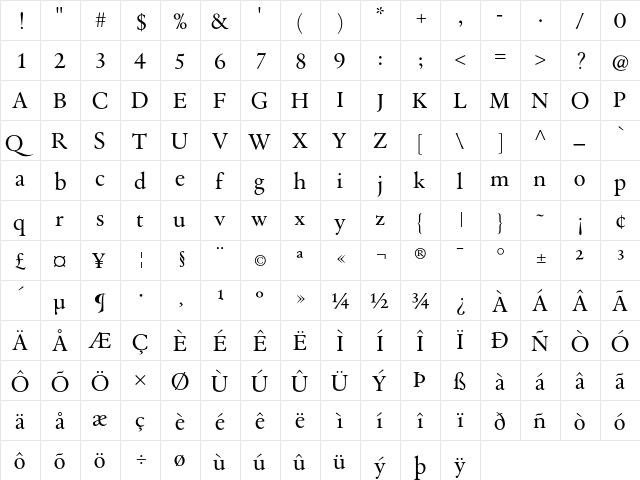
Augereau SemiBold Regular
| Foundry | Expert Alphabets International, Ltd |
| Designer | Expert Alphabets International, Ltd |
Design Context for Augereau SemiBold Typeface
Augereau SemiBold offers clean, dependable letterforms without strong stylistic allegiance, making it a practical choice for designers who need flexibility. The heavy weight commands attention and anchors typographic hierarchies.